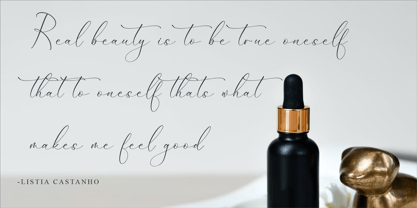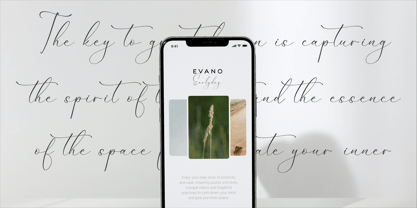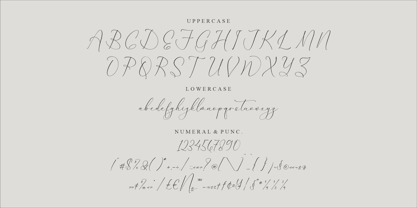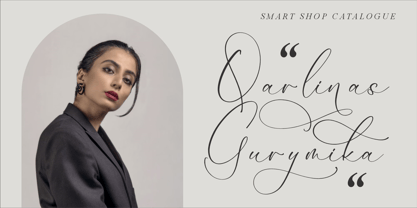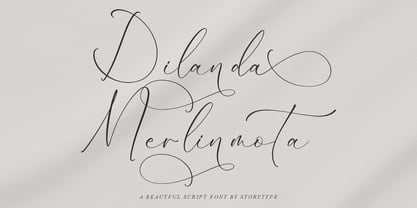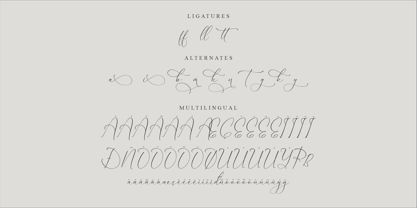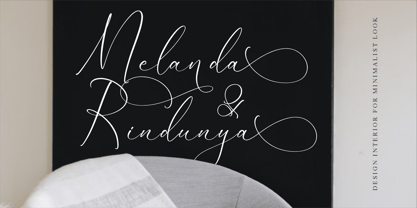
Dilanda Merlinmota
por Letterena Studios
La familia tipográfica Dilanda Merlinmota fue diseñada por Heru Utama Putra y publicada por Letterena Studios. Dilanda Merlinmota contiene 1 estilos.
Dilanda Merlinmota – Beautiful Script Font.
A luxury script has its own unique style & modern look.
This typeface is perfect for an elegant & luxury logo, book or movie title design, fashion brand, magazine, clothes, lettering, quotes, and so much more.